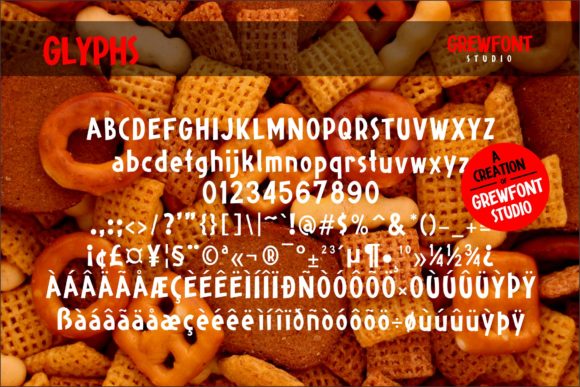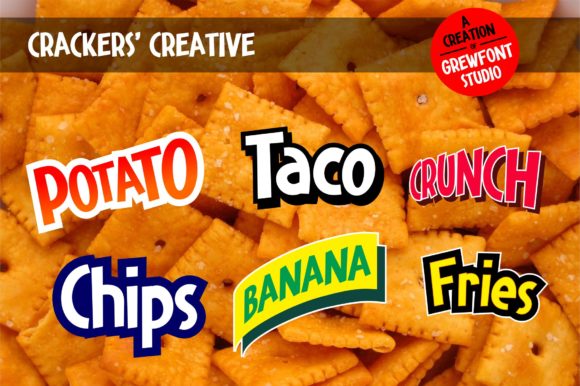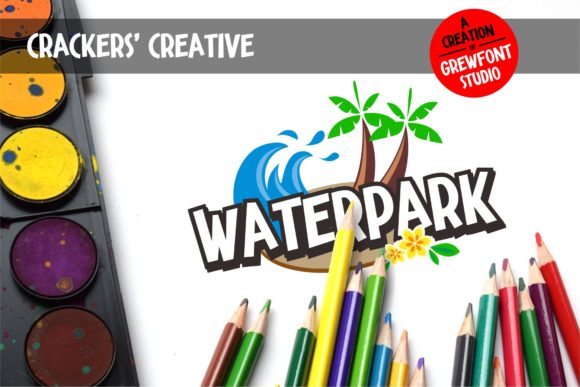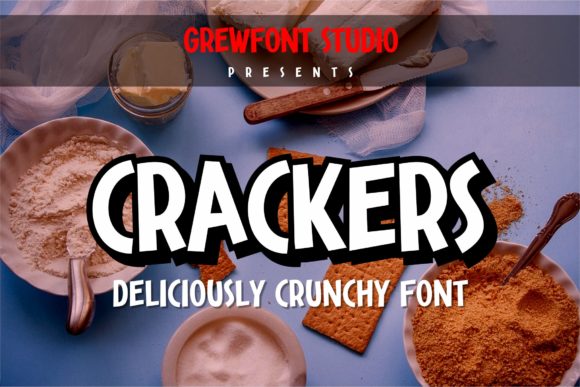
Crackers Font: Unleash Fun, Quirkiness, and Authenticity in Your Designs
Are you tired of using the same old fonts in your designs? Look no further than Crackers Font, a playful and enchanting display font that’s sure to turn your creative ideas into true standouts. With its unique blend of fun, quirkiness, and authenticity, Crackers Font is the perfect addition to any designer’s toolkit.
The Characteristics of Crackers Font
Crackers Font embodies the perfect balance of fun, quirkiness, and authenticity. Its distinctive style is sure to capture the attention of your audience and leave a lasting impression. Here are just a few of the characteristics that make Crackers Font so special:
- Unique Playfulness: Crackers Font has a one-of-a-kind playful style that’s sure to add a touch of whimsy to your designs.
- Enchanting Display Font: With its bold and eye-catching design, Crackers Font is perfect for use in display text, headlines, and titles.
- Authentic Feel: Crackers Font has a genuine, homemade feel that’s sure to resonate with your audience.
Using Crackers Font in Your Designs
Crackers Font is incredibly versatile and can be used in a wide range of design applications. Here are just a few ideas to get you started:
- Crafting Projects: Add a touch of personality to your crafting projects, such as DIY signs, cards, and invitations.
- Digital Designs: Use Crackers Font in your digital designs, such as social media graphics, blog posts, and website headers.
- Print Materials: Crackers Font is perfect for use in print materials, such as flyers, brochures, and posters.
Tips for Getting the Most Out of Crackers Font
To get the most out of Crackers Font, here are a few tips to keep in mind:
- Experiment with Different Sizes: Crackers Font looks great in a variety of sizes, so don’t be afraid to experiment to find the perfect fit for your design.
- Pair with Other Fonts: Crackers Font pairs well with a variety of other fonts, so try combining it with different styles to create a unique look.
- Use in Combination with Images: Crackers Font looks great when used in combination with images, so try incorporating it into your designs to add an extra layer of visual interest.
Why Designers and Crafters Love Crackers Font
Crackers Font has quickly become a favorite among designers and crafters, and it’s easy to see why. Here are just a few reasons why:
- Easy to Read: Despite its playful style, Crackers Font is easy to read, making it perfect for use in a variety of design applications.
- Highly Versatile: Crackers Font can be used in a wide range of design applications, from digital designs to print materials.
- Unique Style: Crackers Font has a one-of-a-kind style that’s sure to help your designs stand out from the crowd.